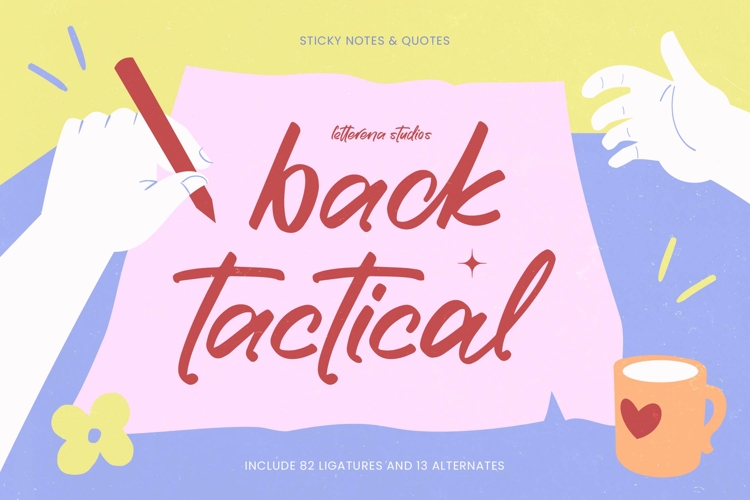
Back Tactical Sticky Notes
Back Tactical – Sticky Notes
Elevate your creative projects with a touch of authentic human expression. Back Tactical – Sticky Notes is a vibrant, handwritten script that captures the raw energy of spontaneous notes and bold ideas. Its natural strokes and expressive ligatures provide an organic flow that mimics real penmanship, making it a standout choice for designers seeking a modern, artisanal aesthetic.
Expand your design horizons and reach a global audience effortlessly. With its extensive multilingual support, Back Tactical – Sticky Notes adapts seamlessly across global markets, making it incredibly versatile for international projects. This cross-cultural compatibility ensures that your message remains impactful and legible, regardless of the language, providing a cohesive brand identity for creators operating on a worldwide scale.
Unlock unparalleled creative flexibility with a rich suite of typographic features. Featuring over 80 unique ligatures and custom alternates, Back Tactical – Sticky Notes offers endless opportunities for customization and stylistic variety. This premium font toolkit allows you to fine-tune every word, ensuring that your typography feels curated and professional while maintaining the playful charm of a casual, ink-based typeface.